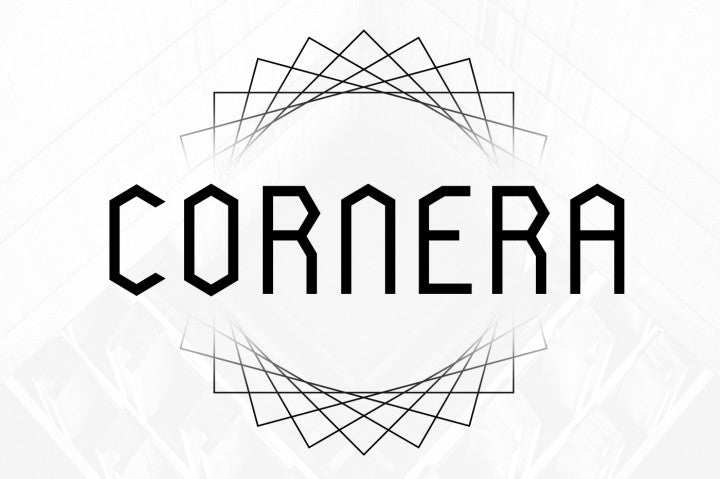
Free Font Cornera Typeface
Download and enjoy this free font cornera typeface. Cool typeface to showcase your designs in a modern way. The Hungry JPEG has created this amazing and beautiful free typeface. You can create a professional designs with this beautiful font.